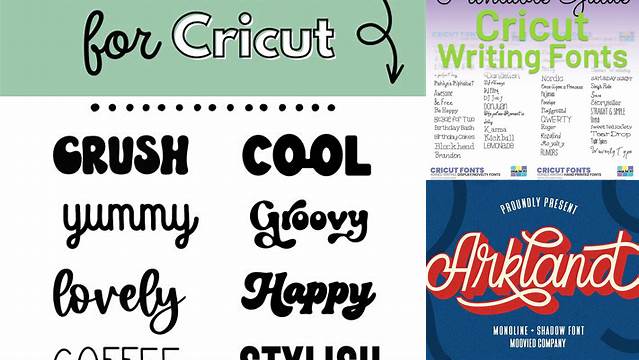
Cricut Shadow Fonts: A Crafter's Guide To Dimension
Hey guys! Are you Cricut crafters always on the hunt for that perfect font to make your projects pop? Well, you've landed in the right place! Let's dive into the wonderful world of Cricut fonts with shadows. These fonts are absolute game-changers when you want to add depth and dimension to your designs. Seriously, a simple shadow can transform a flat, ordinary design into something eye-catching and professional-looking. Whether you're creating personalized cards, stunning home décor, or unique apparel, shadow fonts can elevate your creations to the next level. We're going to explore a variety of fonts that come with built-in shadow layers, saving you time and effort. Plus, we'll talk about how to use them effectively in Cricut Design Space. Think of it this way: a shadow font is like the secret ingredient that makes your crafting recipe a masterpiece. It adds that extra oomph that catches the eye and makes your projects stand out from the crowd. So, buckle up and get ready to discover your new favorite fonts!
Why Choose Shadow Fonts for Your Cricut Projects?
Okay, so you might be wondering, "Why all the hype about shadow fonts?" Let's break it down, guys. The magic of shadow fonts lies in their ability to create a 3D effect, even on flat surfaces. This adds a touch of sophistication and visual interest that plain fonts just can't match. Imagine you're making a birthday banner. Using a shadow font can make the words literally pop off the banner, grabbing everyone's attention. Or picture a custom mug with a name designed in a shadow font – it instantly looks more professional and personalized. One of the biggest advantages of using shadow fonts is the time they save. Instead of manually creating a shadow effect by layering multiple text elements (which, let's be honest, can be a bit of a headache), these fonts come with pre-designed shadow layers. This means you can achieve a polished, layered look with just a few clicks in Cricut Design Space. Talk about a crafting win! And the best part? Shadow fonts are incredibly versatile. They work beautifully for a wide range of projects, from paper crafts and vinyl decals to iron-on designs and home décor. Whether you're going for a bold and dramatic look or a subtle and elegant touch, there's a shadow font out there that's perfect for your needs. Plus, using shadow fonts can make your designs more readable, especially when working with busy backgrounds or intricate designs. The shadow effect helps the text stand out, ensuring your message is clear and impactful. So, if you're looking to add a professional touch, save time, and create stunning projects, shadow fonts are definitely your new best friend.
Top Cricut Fonts with Shadows You Need to Know
Alright, let's get to the good stuff! We're diving into some of the top Cricut fonts with shadows that you absolutely need to know about. These fonts are not only stylish and versatile but also super easy to use in Cricut Design Space. First up, we have the classic Arial Shadow. This font is a fantastic choice for projects where readability is key. The clean, sans-serif design combined with a subtle shadow makes it perfect for labels, signs, and even t-shirt designs. It’s a true workhorse that you’ll find yourself reaching for time and time again. Next on our list is Impact Shadow. If you're looking to make a bold statement, this is your go-to font. Its strong, blocky letters and pronounced shadow create a powerful visual impact, ideal for posters, banners, and anything that needs to grab attention. Think of it as the font that shouts from the rooftops (in a good way, of course!). For a touch of elegance and flair, check out Lucida Calligraphy Shadow. This script font adds a touch of sophistication to your projects, making it perfect for wedding invitations, personalized cards, and anything that calls for a bit of grace. The delicate strokes and soft shadow create a beautiful, refined look. If you're in the mood for something a little more playful, Comic Sans MS Shadow might just be what you need. This font is fun, friendly, and approachable, making it a great choice for children's projects, party decorations, and anything that needs a touch of whimsy. The shadow adds depth without sacrificing the font's lighthearted feel. Last but not least, we have Times New Roman Shadow. This font is a classic for a reason. Its timeless design and subtle shadow make it incredibly versatile, suitable for everything from professional documents to crafting projects. It’s the font you can always rely on to deliver a polished, professional look. Each of these fonts brings something unique to the table, and they all work seamlessly with Cricut Design Space. So, whether you're a seasoned crafter or just starting out, these shadow fonts will help you create projects that truly shine.
How to Use Shadow Fonts in Cricut Design Space
Tips for Creating Stunning Projects with Cricut Shadow Fonts
Alright, guys, you've got the fonts, you know how to use them, but let's talk about some tips for creating truly stunning projects with Cricut shadow fonts. These little nuggets of wisdom can take your crafting game to the next level and ensure your designs look professional and polished. First up, consider your color palette. The colors you choose for your text and shadow layers can make a huge difference in the overall impact of your design. High contrast colors, like black text with a white shadow or vice versa, can create a bold and dramatic look. On the other hand, using similar colors, like a dark blue text with a light blue shadow, can create a more subtle and elegant effect. Experiment with different color combinations to find what works best for your project. Next, think about the size and placement of your shadow. A larger shadow can make your text pop more, but it can also make it harder to read if it's too overwhelming. Similarly, the placement of the shadow can affect the overall look of your design. Try moving the shadow slightly to the left, right, up, or down to see how it changes the effect. Don't be afraid to play around until you find the perfect balance. Another great tip is to use shadow fonts to add emphasis. If you have a longer text phrase, you can use a shadow font for the most important words or phrases to make them stand out. This can help guide the viewer's eye and make your message more impactful. Also, don't be afraid to combine shadow fonts with other fonts. Mixing and matching different font styles can add visual interest to your designs and create a unique, personalized look. Just be sure to choose fonts that complement each other and maintain a consistent style throughout your project. Finally, always test your design before cutting. Use the "Make It" button in Cricut Design Space to preview how your design will look when cut. This will give you a chance to catch any errors or make adjustments before you waste materials. It’s always better to be safe than sorry! By following these tips, you can create incredible projects with Cricut shadow fonts that are sure to impress. Happy crafting, guys!
Where to Find the Best Cricut Shadow Fonts
So, you're totally pumped about using Cricut shadow fonts in your projects, but where do you actually find these gems? Don't worry, guys, I've got you covered! There are tons of fantastic resources out there, both free and paid, where you can discover the perfect shadow font for your next creation. Let's start with the Cricut Design Space library itself. Cricut Design Space has a wide selection of fonts, including many with shadow options, available through Cricut Access or for individual purchase. This is a great place to start your search, as you know these fonts are guaranteed to work seamlessly with your Cricut machine. Plus, Cricut often offers new fonts and designs, so it's worth checking back regularly to see what's new. Another fantastic resource is Etsy. Etsy is a treasure trove of unique and creative fonts, many of which include shadow layers. You can find fonts from independent designers, often at very reasonable prices. Just be sure to check the font's license terms to make sure it's suitable for your intended use (e.g., personal or commercial). Creative Fabrica is another excellent option for finding high-quality shadow fonts. This website offers a wide variety of fonts, graphics, and crafting resources, often with commercial licenses included. They also have a subscription option that gives you access to a huge library of fonts for a monthly fee. If you're on a budget, there are also several websites that offer free fonts, including shadow fonts. DaFont and FontSpace are two popular options. However, it's important to be careful when downloading free fonts, as some may not be properly licensed or may contain viruses. Always download fonts from reputable sources and double-check the license terms before using them. Finally, don't forget to check out individual font designers' websites. Many font designers have their own websites where they sell their fonts directly. This can be a great way to support independent artists and find unique, high-quality fonts that you won't find anywhere else. So, whether you're looking for free fonts or premium designs, there are plenty of places to find the perfect Cricut shadow font for your projects. Happy hunting, and happy crafting!
Conclusion: Level Up Your Crafts with Shadow Fonts
Alright, guys, we've reached the end of our deep dive into the wonderful world of Cricut fonts with shadows! Hopefully, you're feeling inspired and ready to take your crafting projects to the next level. Shadow fonts are truly a game-changer when it comes to adding depth, dimension, and a professional touch to your designs. From creating eye-catching banners and personalized gifts to stunning home décor and stylish apparel, the possibilities are endless. We've explored why shadow fonts are so effective, highlighted some of the top shadow fonts you need to know, walked through how to use them in Cricut Design Space, and shared tips for creating stunning projects. We've also discussed where to find the best shadow fonts, both free and paid, so you have all the resources you need to get started. Remember, the key to crafting amazing projects is to experiment and have fun! Don't be afraid to try different fonts, colors, and shadow effects to discover your own unique style. Play around with different font combinations, adjust the shadow placement and size, and see what you can create. And most importantly, don't get discouraged if your first few projects aren't perfect. Crafting is a journey, and every project is a learning opportunity. So, grab your Cricut machine, fire up Cricut Design Space, and start exploring the magic of shadow fonts. Whether you're a seasoned crafter or just starting out, these fonts will help you create projects that truly shine. So go ahead, guys, unleash your creativity and let those shadows work their magic. Happy crafting!